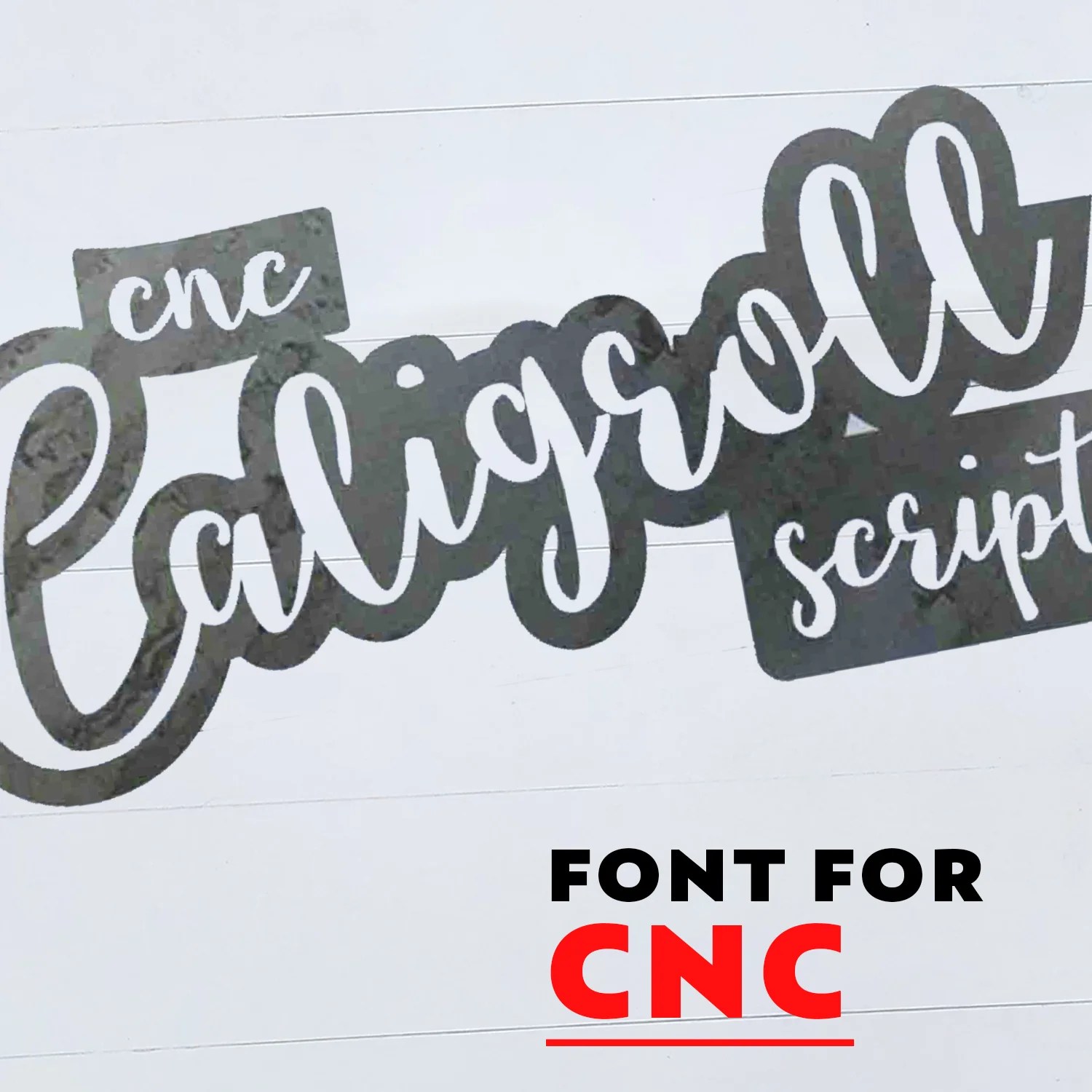
These Single Line Fonts For Laser Cutting Will Cut Down The Time Spent.
Our Dxf Fonts For Plasma Cutting Can Be Cut With Plasma, Laser, Or Waterjet Cnc Machines.
These Are Typically Cursive Fonts Where The Letters Run Together.